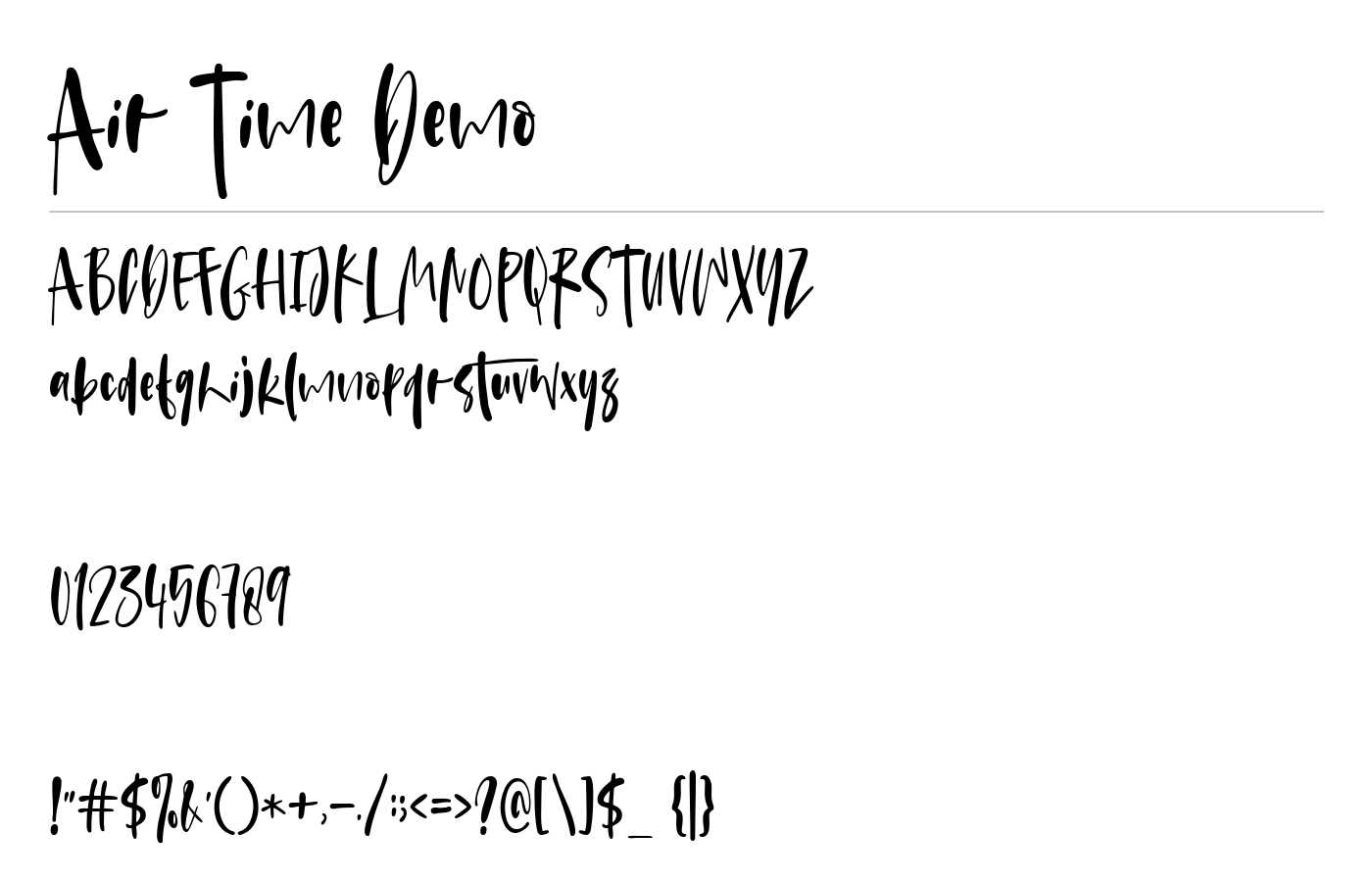
Air Time Demo is a casual, handwritten script font characterized by its tall, narrow letterforms and playful, irregular strokes that create a lively and personal feel. With its lively and friendly style, this font works perfectly for creative projects, branding, invitations, and any design seeking a warm, approachable touch. Its distinct, tall characters and artistic flair make it an engaging choice for headlines and expressive text.
Air Time Demo Font
About Air Time Demo Font